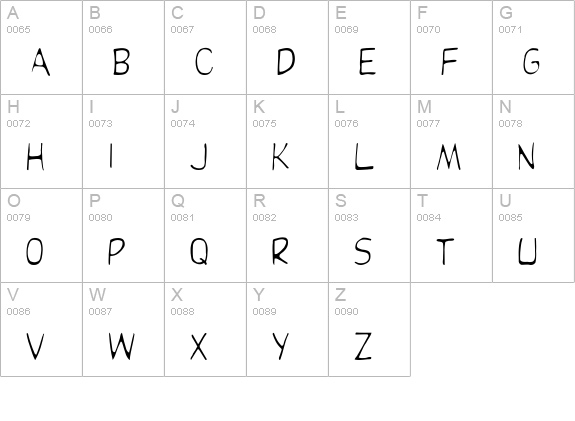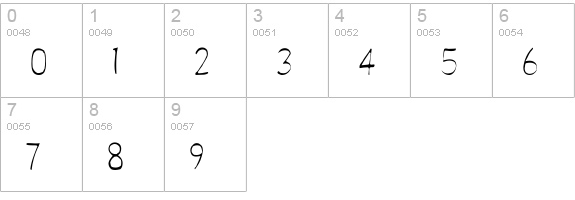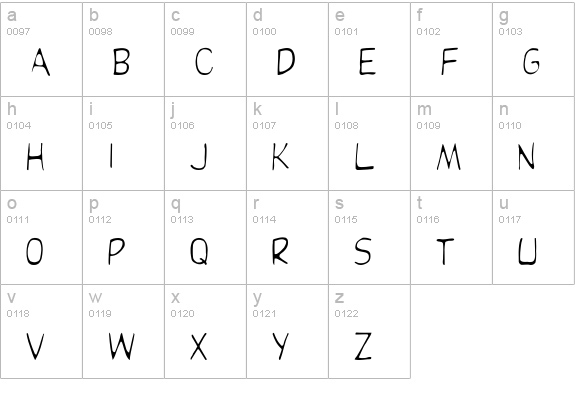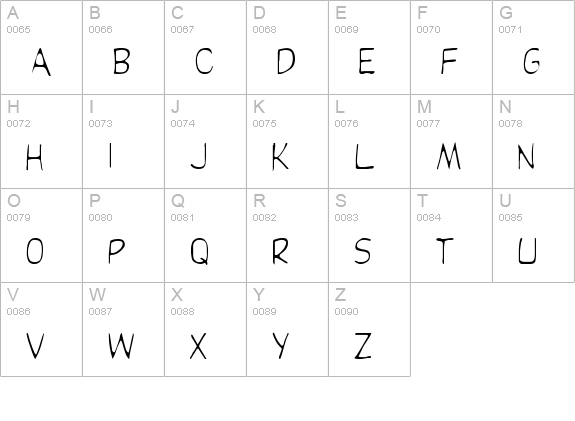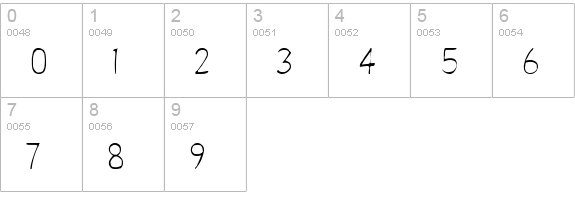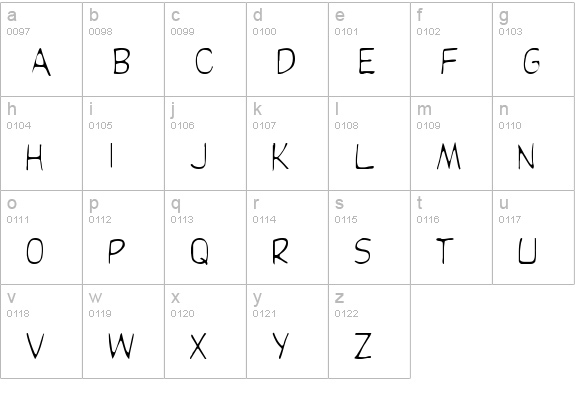
DupuyLight is a charming and elegant font that exudes a sense of sophistication and style. With its slender and graceful letterforms, this typeface is perfect for adding a touch of class to any design project. Whether used for headings, body text, or logos, DupuyLight is sure to make a statement. One of the best things about DupuyLight is that it is available for free download at FontsMarket.com. This means that you can easily access this beautiful font and use it in your projects without any cost. With its timeless appeal and versatile design, DupuyLight is a must-have addition to any designer's toolkit. Download it today and elevate your designs with this exquisite typeface.